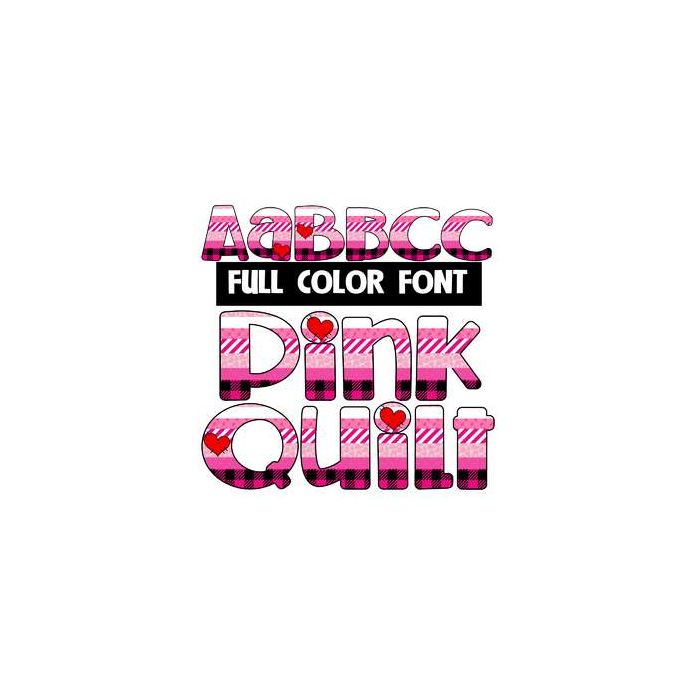
This full-color font features several patterns stitched together in pink colors with a heart patch to boot. This font works best for titles, displays, posters and more. Please note color fonts will show as black in non compatible programs. This font type is compatible with Silhouette Studio